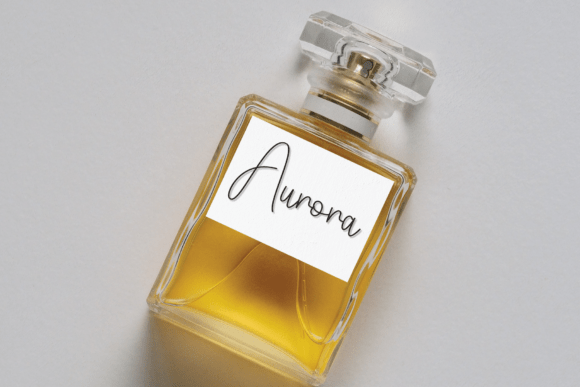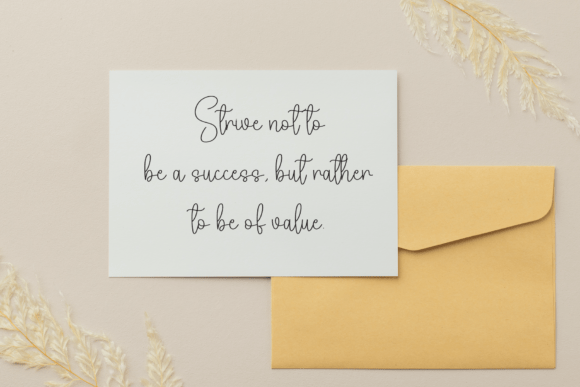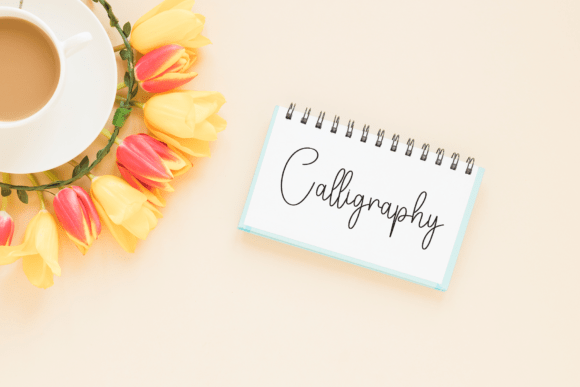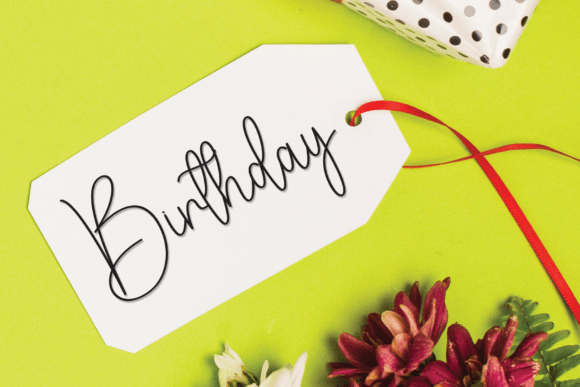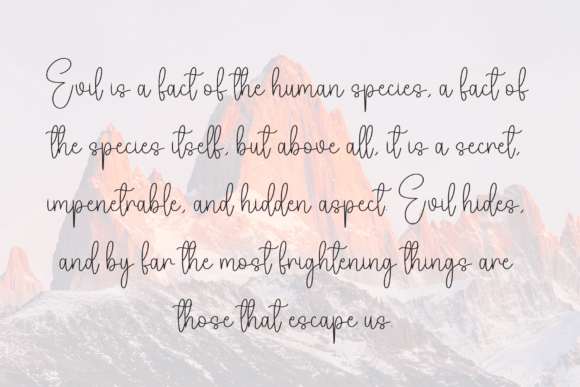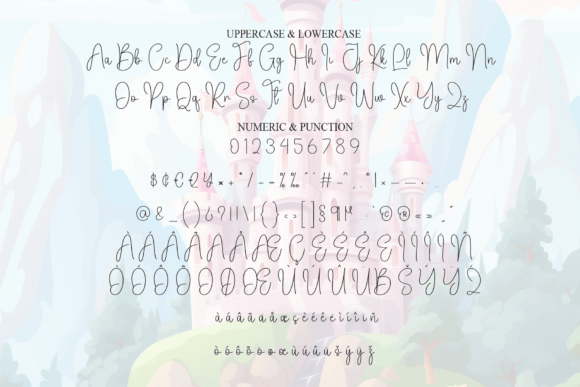
Fairytales Font: Elevate Your Designs with Elegance and Sophistication
In the world of typography, few fonts capture the essence of elegance and contemporary charm as effortlessly as Fairytales Font. This stylish script font is a masterpiece of modern calligraphy, boasting graceful strokes, fluid curves, and meticulously crafted letterforms that evoke the beauty of hand-drawn artistry. Whether you’re a designer, crafter, or simply someone who appreciates the finer details, Fairytales Font is sure to captivate your senses and inspire your creativity.
The Beauty of Fairytales Font
Fairytales Font is more than just a typography; it’s an experience. Its carefully designed letterforms are infused with a sense of fluidity and movement, as if the words themselves were written with a brush or a pen. The font’s elegant strokes and curves create a natural flow that’s both soothing to the eye and engaging to the imagination. Whether you’re crafting a logo, invitation, packaging, or social media graphic, Fairytales Font adds a refined and sophisticated touch that elevates your design to new heights.
Versatility and Visual Appeal
One of the standout features of Fairytales Font is its versatility. This font is designed to be adaptable, working seamlessly across various design applications and mediums. From the intricate details of a logo to the bold statements of a social media graphic, Fairytales Font delivers both style and substance. Its polished details and natural flow make it an excellent choice for a wide range of projects, including:
• Logos: Create a lasting impression with a custom logo that exudes elegance and sophistication.
• Invitations: Set the tone for a special occasion with beautifully crafted invitations that showcase your personal style.
• Packaging: Elevate your product’s branding with eye-catching packaging that stands out on store shelves.
• Social Media Graphics: Make a statement on social media with stunning graphics that reflect your unique voice and aesthetic.
The Art of Hand-Drawn Calligraphy
Fairytales Font is deeply rooted in the art of hand-drawn calligraphy, with each letterform carefully crafted to evoke the feeling of a handwritten piece. The font’s creator has skillfully blended traditional calligraphy techniques with modern digital tools to produce a truly unique typography that feels both nostalgic and contemporary. This blend of old and new gives Fairytales Font its distinctive character and makes it a standout in the world of typography.
Why Choose Fairytales Font?
With so many fonts available, why choose Fairytales Font? Here are just a few reasons why designers and crafters alike are falling in love with this stunning script font:
• Elegance: Fairytales Font exudes elegance and sophistication, making it perfect for high-end designs and luxury brands.
• Versatility: This font is adaptable and works well across various design applications and mediums.
• Unique Character: Fairytales Font has a distinctive character that sets it apart from other fonts, making it perfect for designers who want to create something truly unique.
• Easy to Read: Despite its elegant and cursive nature, Fairytales Font is surprisingly easy to read, making it perfect for body text and headlines.
In conclusion, Fairytales Font is a game-changer for designers and crafters looking to elevate their designs with elegance and sophistication. Its unique blend of traditional calligraphy and modern digital tools makes it a standout in the world of typography. With its versatility, visual appeal, and distinctive character, Fairytales Font is sure to inspire your creativity and take your designs to new heights. So why wait? Discover the magic of Fairytales Font today and transform your designs into works of art.